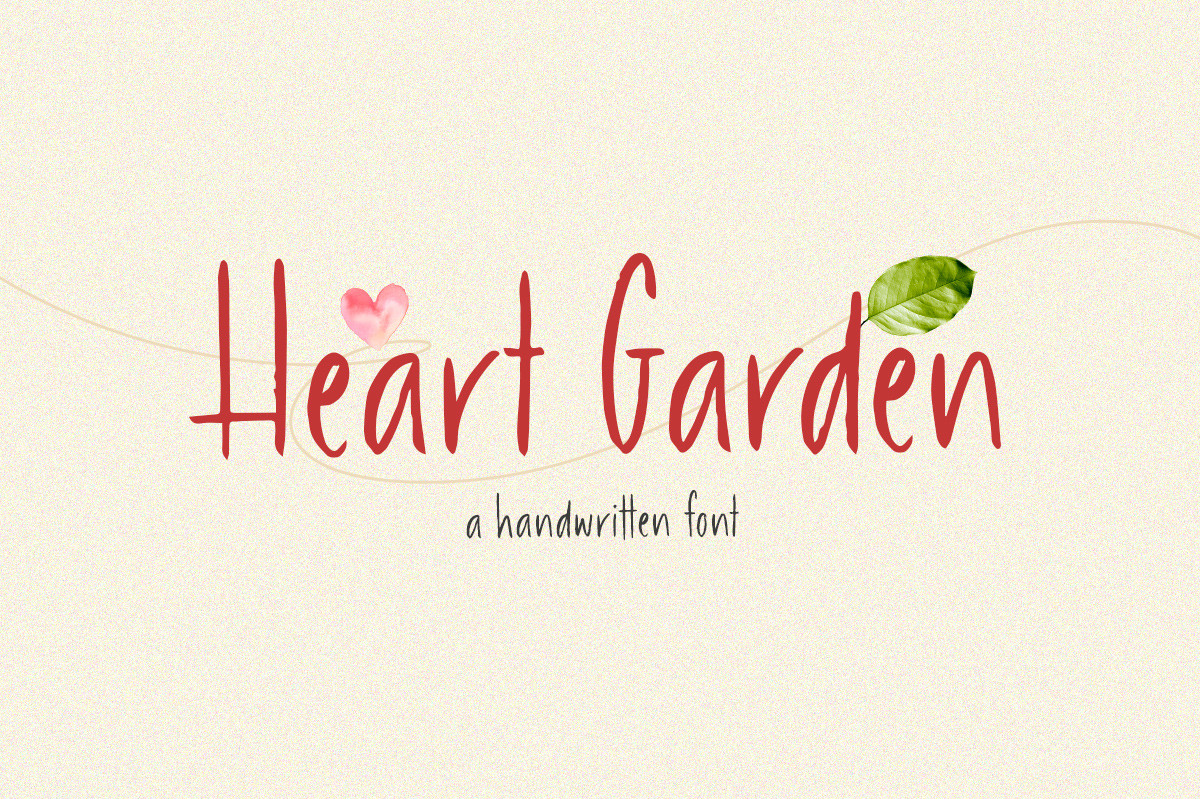
Heart Garden Font
Perfect for wedding invitations, greeting cards, branding, logos, and romantic-themed designs.
The Heart Garden Font excites designers with its delicate, hand-lettered script style that brings warmth and elegance to any project.
Font families: Heart Garden Regular, Heart Garden Italic.
The Heart Garden Font Free Download is a beautifully crafted script typeface featuring smooth curves and charming flourishes, ideal for romantic branding, stationery, and creative editorial work.
One of the key strengths of Heart Garden Font is its ability to evoke emotion and sophistication while maintaining excellent readability.
In branding, Heart Garden communicates love, grace, and creativity. It pairs perfectly with soft color palettes, floral graphics, and minimalist layouts to create memorable and heartfelt visuals.
For digital projects, this font enhances social media posts, website headers, and digital invitations, adding a tender and artistic flair to your typography.